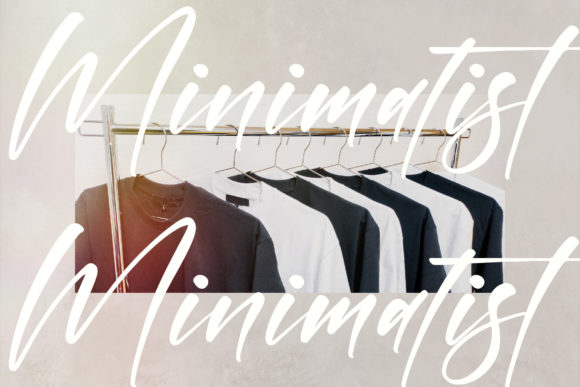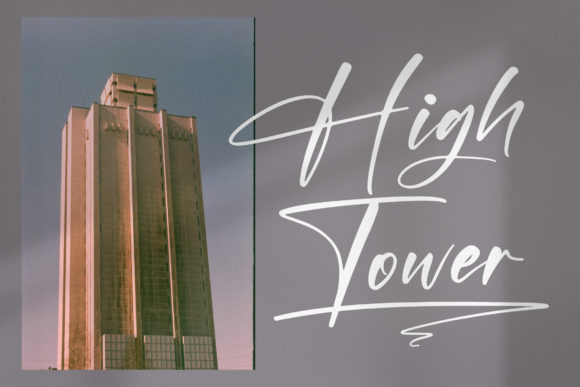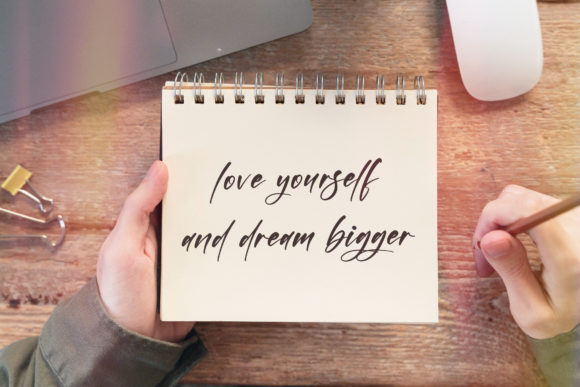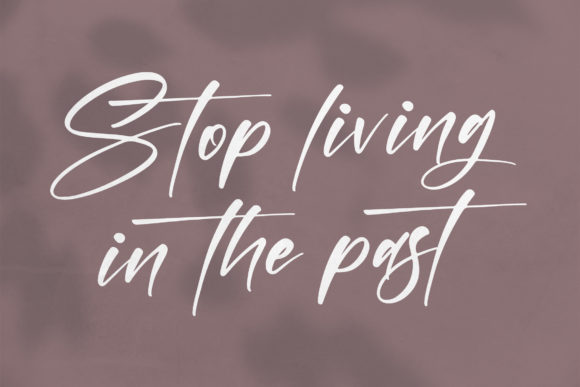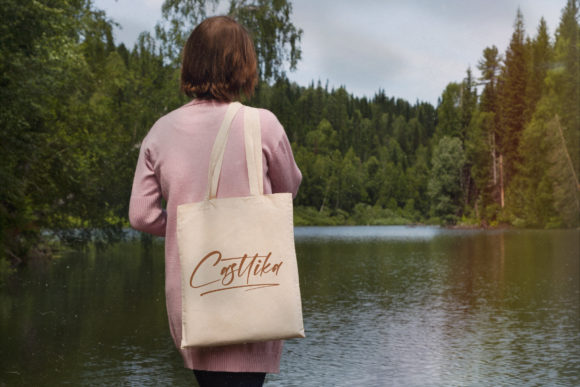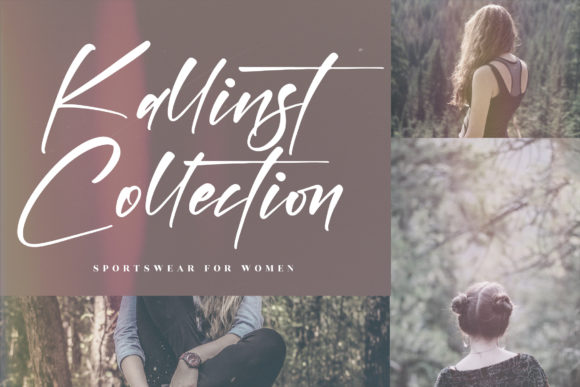
Introduction to Casttika Font
Casttika is a modern signature font, suitable for any projects such as logos, branding projects, homeware designs, product packaging, mugs, quotes, posters, shopping bags, t-shirts, book covers, name cards, invitation cards, greeting cards, labels, photography, watermark, or special events.
Casttika is a modern signature font, suitable for any projects such as logos, branding projects, homeware designs, product packaging, mugs, quotes, posters, shopping bags, t-shirts, book covers, name
Key Features of Casttika Font